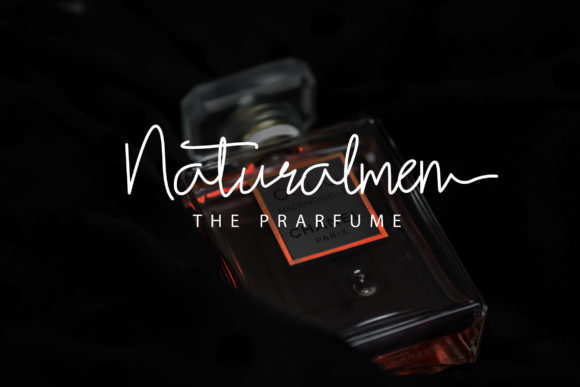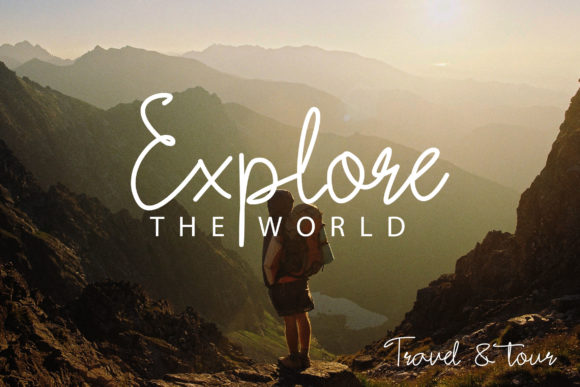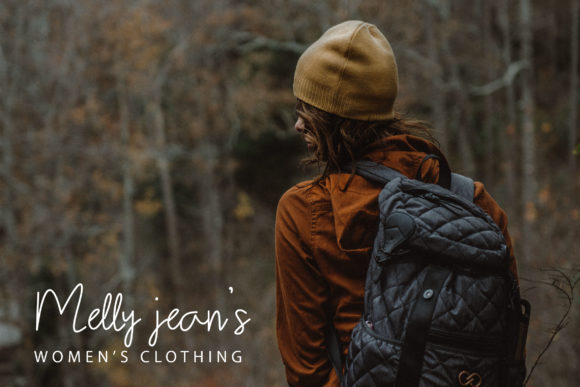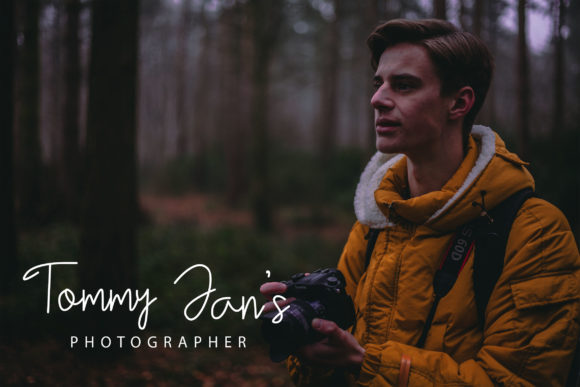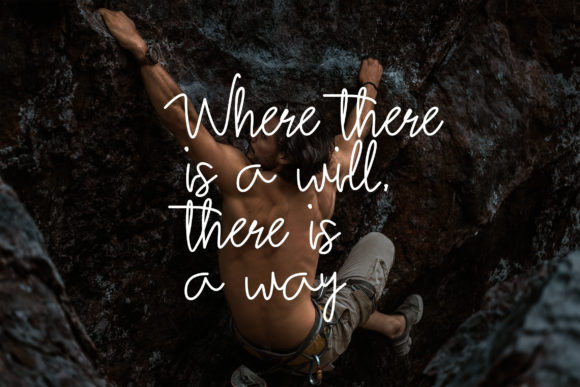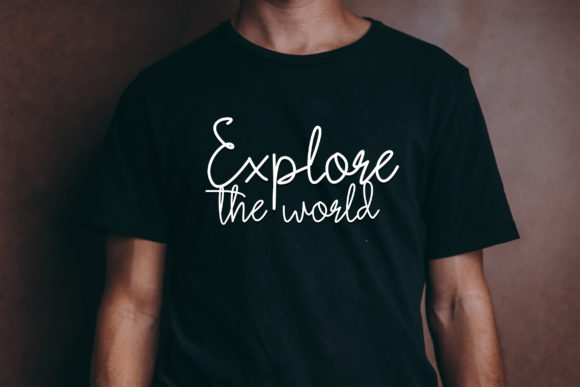
Introduction to Jullyet Font
Jullyet is a thin and cursive handwritten font.
This gentle font will look gorgeous on a variety of design ideas It will add a joyful and romantic touch to each of your projects.
Jullyet Font offers exceptional quality and versatility, making it a valuable addition to your design toolkit. Whether you’re creating for personal projects or commercial use, Jullyet Font delivers professional results.